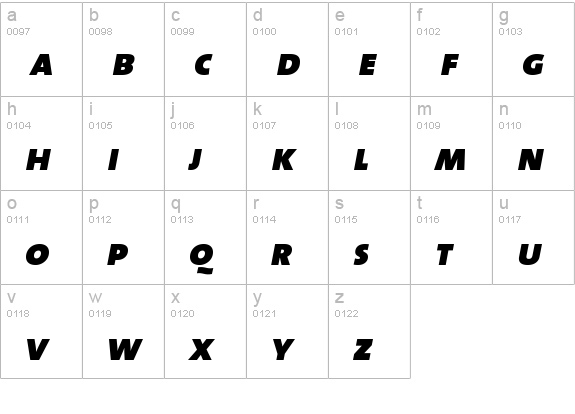
TheMix Black Caps Italic Font Details
TheMix Black Caps Italic is a maximum-weight, dramatic, italic variant in the TheMix typeface family \xE2\x80\x94 well suited to maximum-impact headlines, posters, and packaging.
Introducing TheMix Black Caps Italic, a font that effortlessly combines boldness and elegance into every stroke. With its sleek design and unique italics, this font is perfect for adding a touch of sophistication to any project. TheMix Black Caps Italic stands out with its strikingly bold characters, making it an ideal choice for headlines, titles, and logos that demand attention. Its sharp edges and clean lines exude confidence and professionalism, making it the perfect choice for modern designs. This font is not only visually stunning, but it also offers versatility in its usage. Whether you're designing a sleek poster, creating a stylish website, or crafting an eye-catching brochure, TheMix Black Caps Italic has got you covered. One of the best things about TheMix Black Caps Italic is that it is freely available to download at FontsMarket.com. This means that you can easily access this exceptional font without breaking the bank. The font's availability for free ensures that designers, creatives, and enthusiasts alike can enjoy its beauty and functionality without any limitations. So why wait? Download TheMix Black Caps Italic today and unlock the potential to create stunning designs that leave a lasting impression. Let your creativity soar with this free font, and watch as your projects come to life with a touch of elegance and boldness.